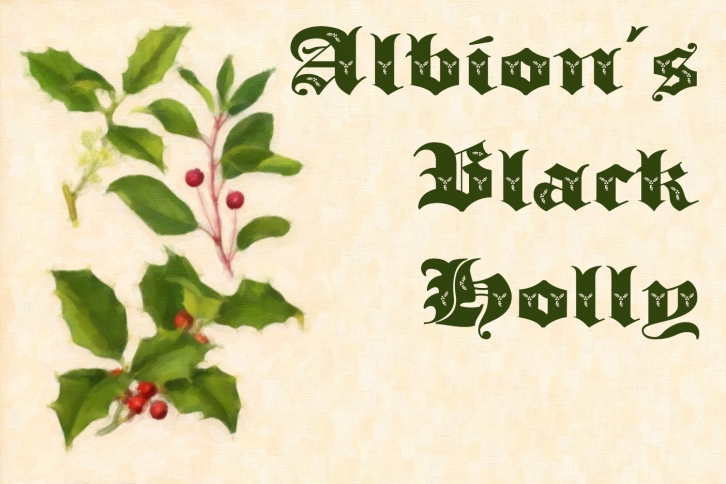
Albions Black Holly is a trendy and unique font with an authentic style. It was designed by Greater Albion TypeFounders and it's a great choice for creative people who need such a font. It was released on November 4, 2016 and the file size is 10.84 MB. Albions Black Holly will add an organic vibe to any design idea!